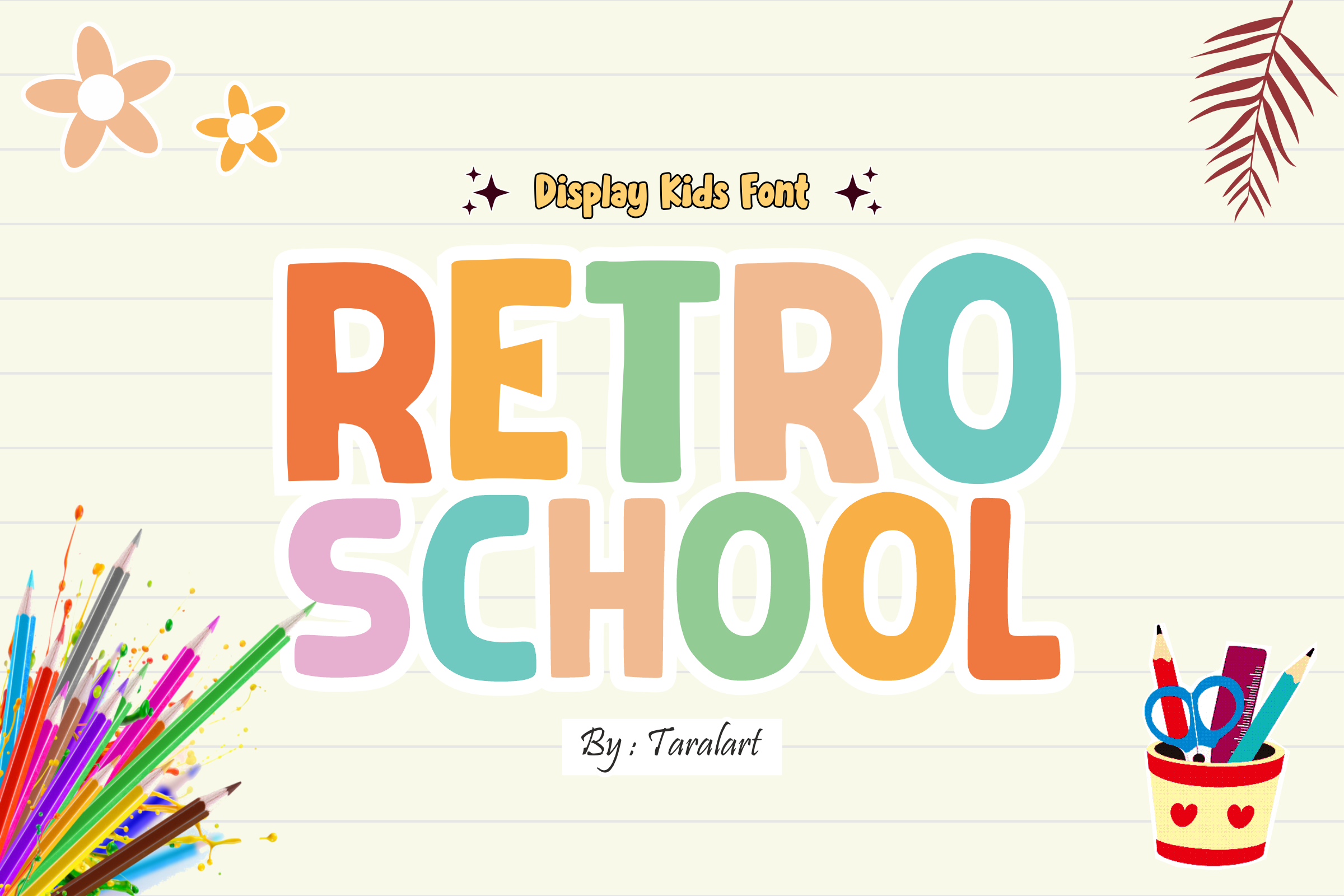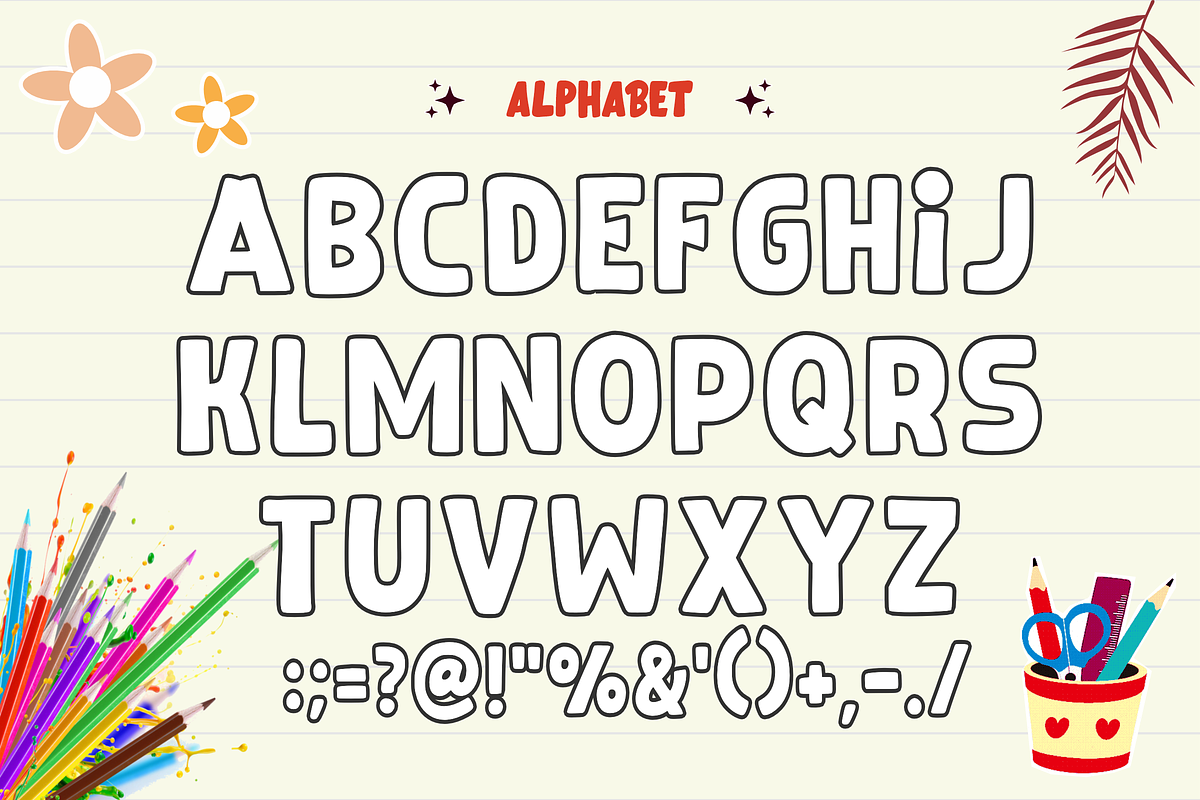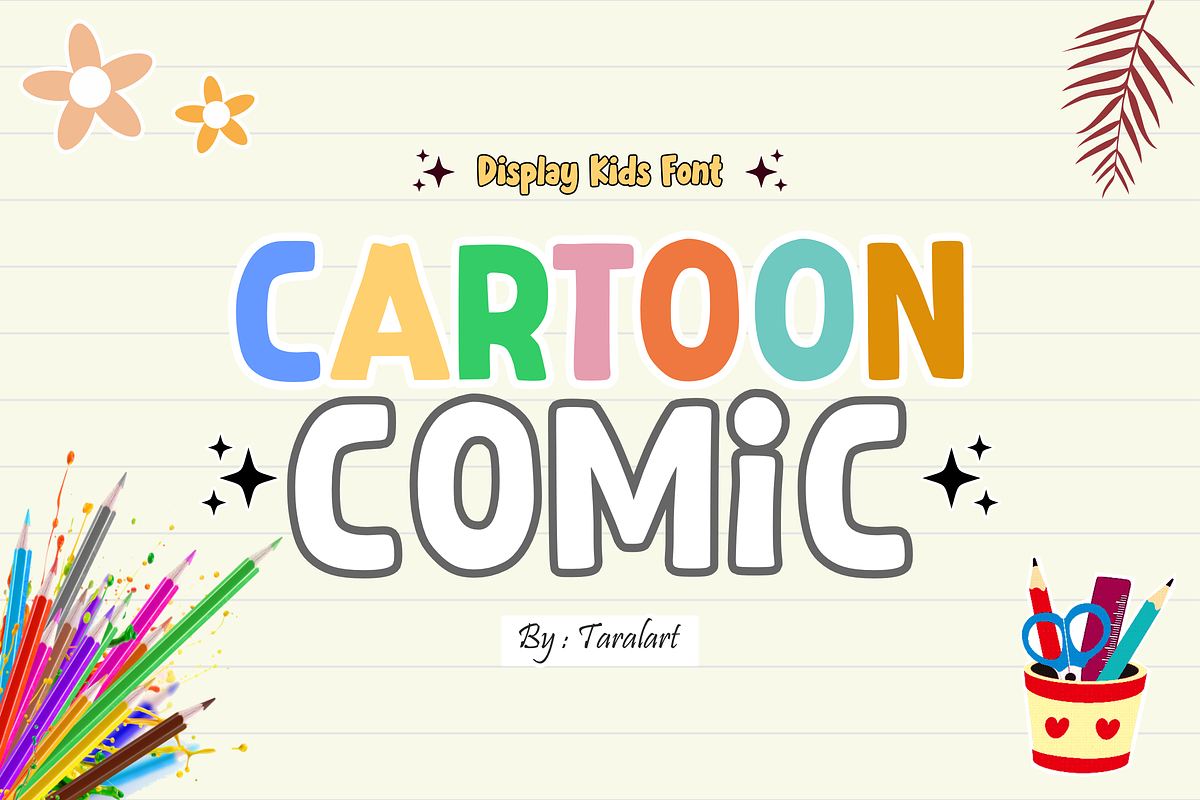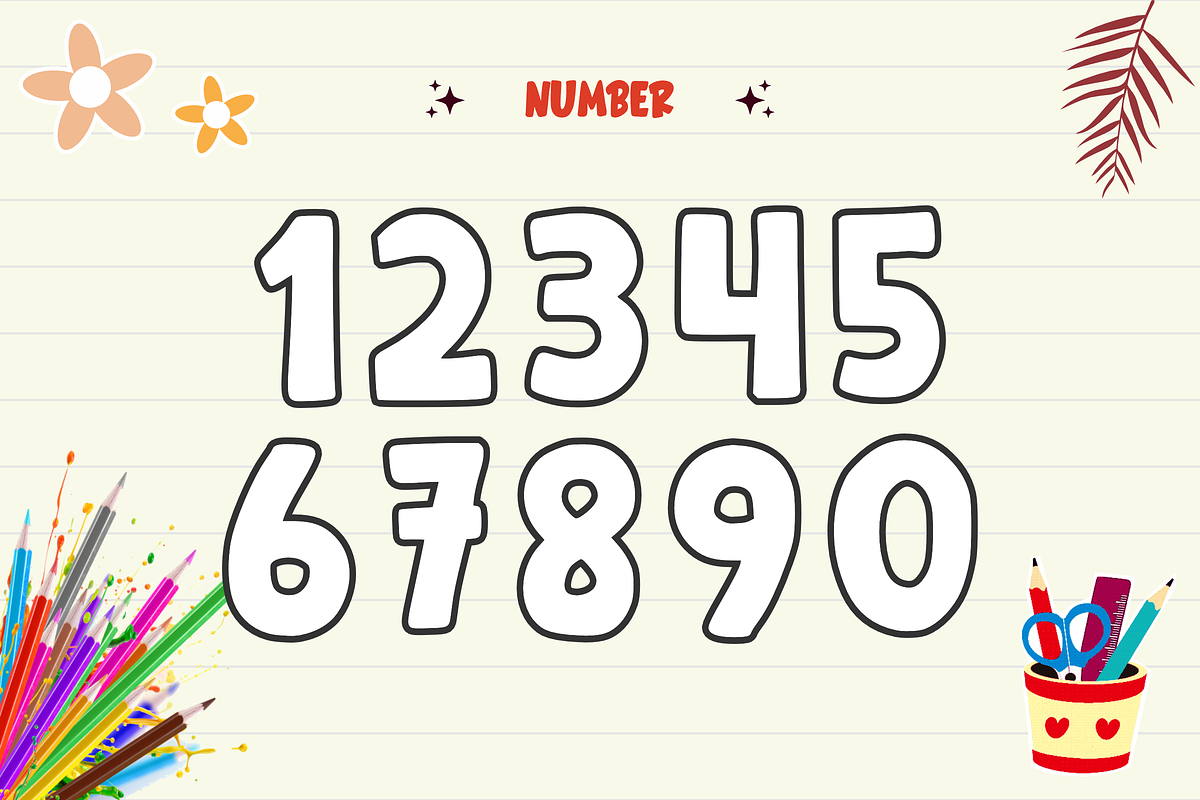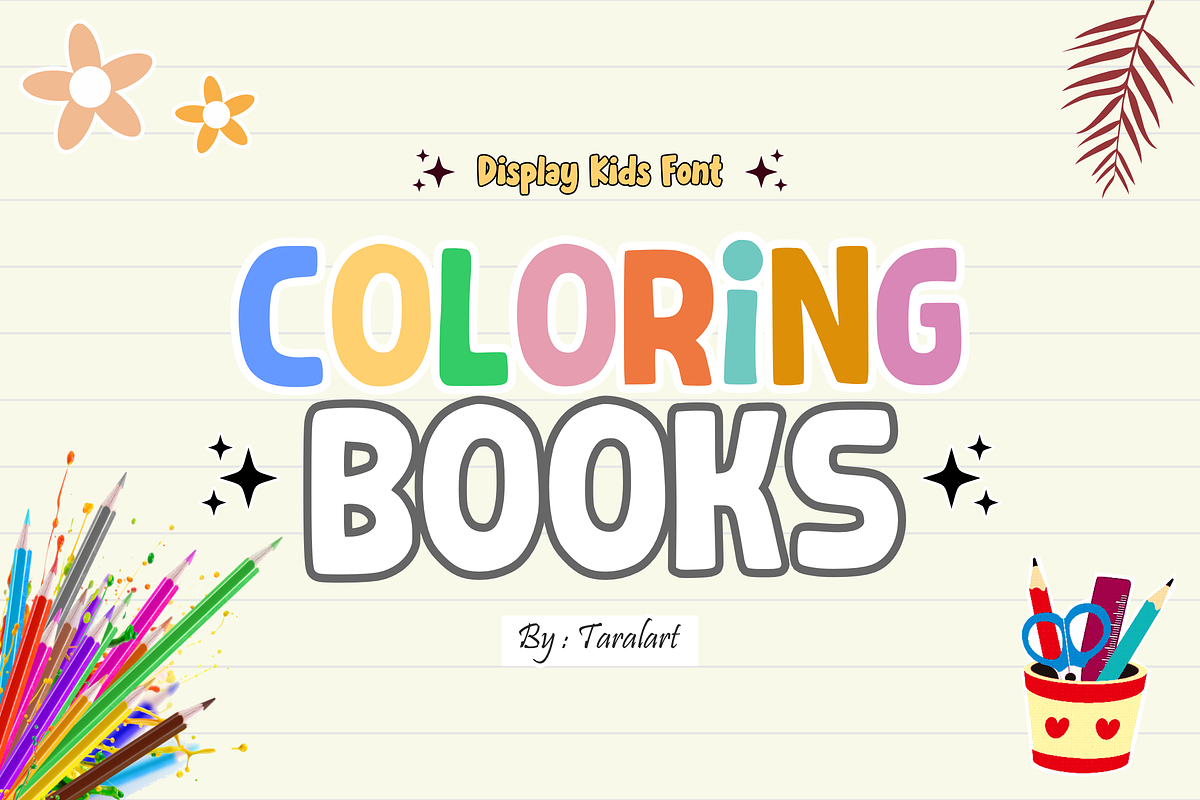
Retro School - Playful Display Font
Step back into the coolest classroom with Retro School! This delightfully chunky, vintage-inspired display font brings a smooth, rounded, and nostalgic charm to any design. With its friendly and bold letterforms, it’s the ultimate choice for making titles, educational materials, and kids' crafts look effortlessly fun and stylish.
Perfect for teacher resources, groovy classroom decor, and trend-focused crafting, Retro School beautifully balances a whimsical retro aesthetic with excellent readability. It is highly versatile, deeply expressive, and fully optimized for flawless performance across premium digital cutting tools and professional print setups.
All-Caps Character Set (Chunky, retro-style uppercase letters)
Numbers & Basic Punctuation (Essential, simple symbols included)
Teacher Resources, Educational Worksheets, & School Bulletin Boards ✏️
Retro Kids Branding, Children's Book Covers, & Toy Packaging 📚
Cricut, Silhouette, & DIY Groovy Craft Sublimation Projects ✂️
Kids Room Decor, Nursery Wall Art, & Birthday Party Invitations 🎈
Custom Die-Cut Stickers, Toddler Apparel Prints, & Cute Merch 👕
High-Impact YouTube Thumbnails, Fun Logos, & Social Media Graphics ✨